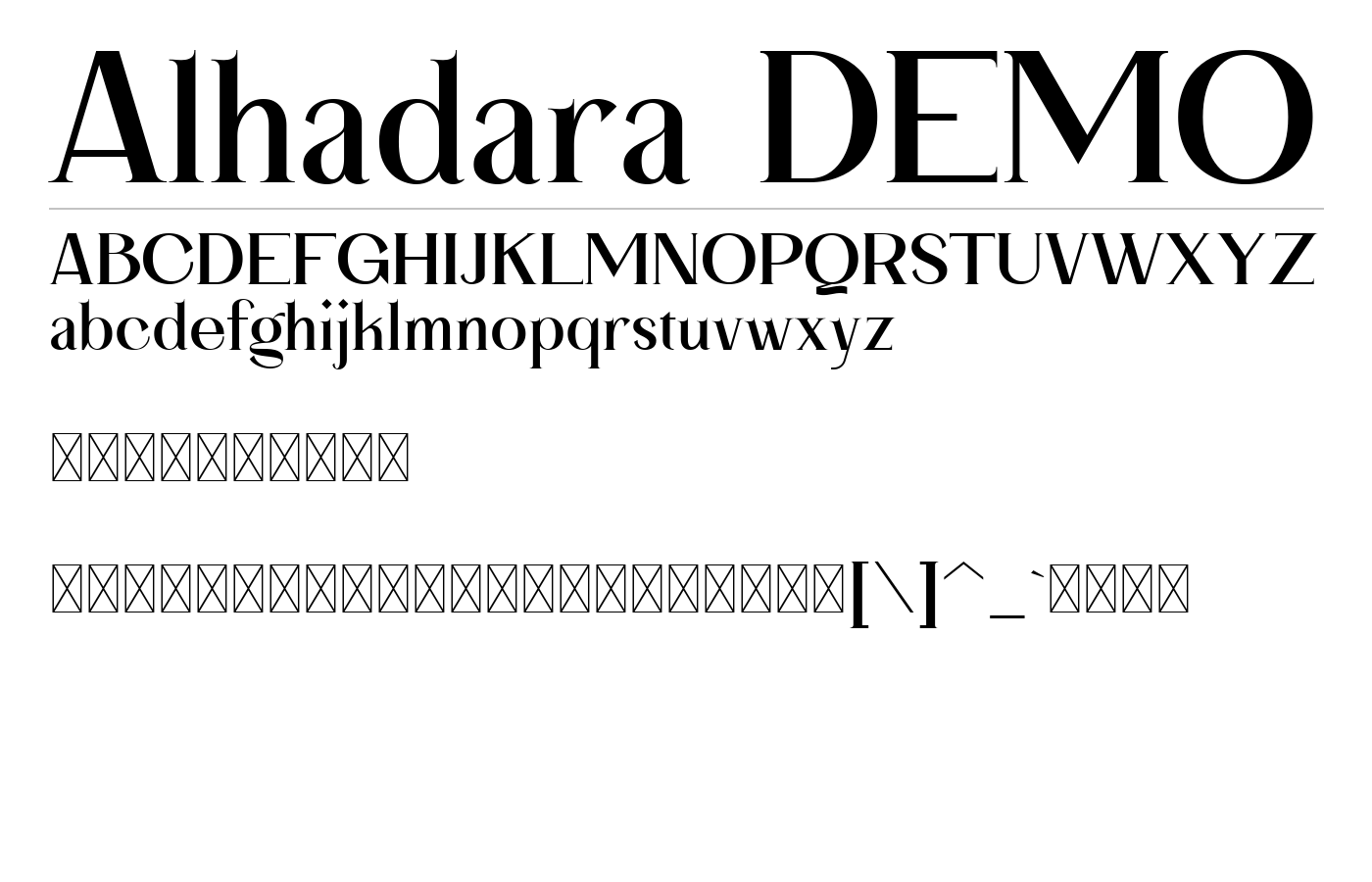
Alhadara DEMO is an elegant serif font featuring high contrast between thick and thin strokes, with slender, bracketed serifs that convey a refined, classic feel. Its tall, narrow letterforms and sophisticated curves make it ideal for luxury branding, editorial headlines, and fashion packaging where a timeless, upscale impression is desired. This typeface blends tradition with modern sharpness, perfect for projects seeking a stylish and distinguished look.
Alhadara DEMO Font
About Alhadara DEMO Font
| Font family | Alhadara DEMO Font |
| Designer | PentagoniStudio |